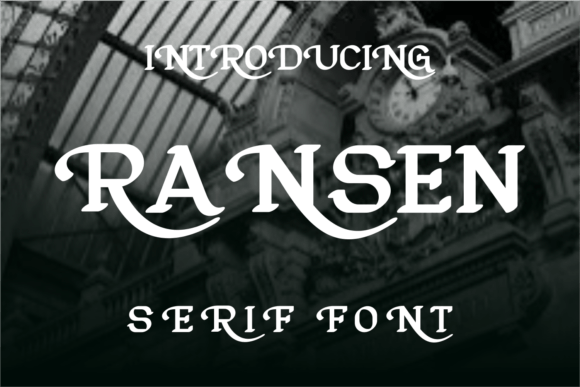
Prepare to be captivated by the Ransen Font, a visual masterpiece designed to leave an unforgettable impression on your audience. As a display font, Ransen possesses an innate ability to command attention, making it the perfect choice for creating captivating headlines, eye-catching logos, and stunning social media graphics.
With its sleek lines, sharp angles, and dynamic curves, Ransen exudes a sense of modernity and sophistication that is sure to leave a lasting impact. Whether you're crafting a digital marketing campaign, designing a website, or simply adding a touch of flair to your personal projects, Ransen is the font that will elevate your creations to new heights.
But Ransen is more than just a pretty face. It's also incredibly versatile, lending itself seamlessly to a wide range of design applications. From posters and flyers to brochures and presentations, Ransen has the power to transform your words into works of art. And with its PUA encoding, you'll have effortless access to a world of glyphs and ligatures, opening up endless possibilities for customization and creativity.
Immerse yourself in the world of Ransen and discover a font that will ignite your imagination and empower you to create designs that stand out from the crowd. Unleash your creativity and let Ransen take your visual communication to extraordinary new heights.